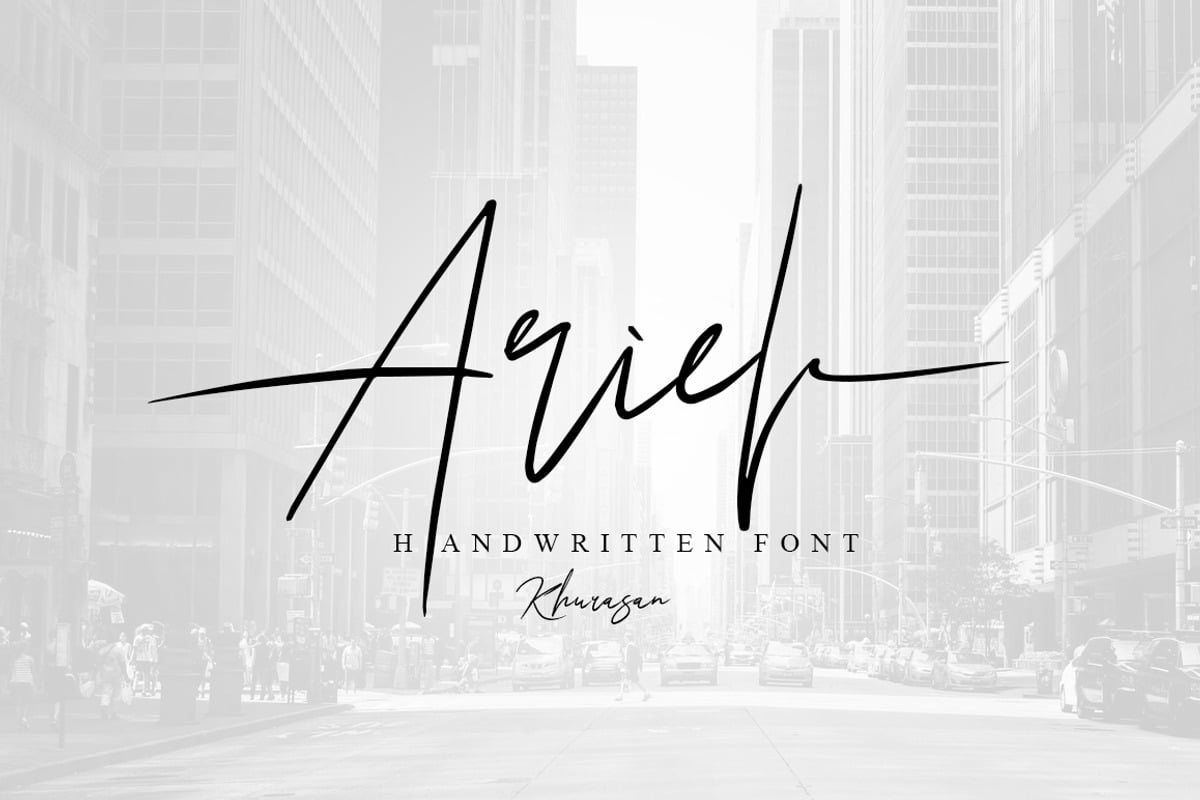
Ariel Signature Font
Create stunning designs with Ariel Signature font - a fresh and uniquely handcrafted script typeface. This handmade signature font brings an elegant, personal touch to any project. Ariel Signature Typeface works beautifully for logos, stationery, posters, apparel, branding, wedding invitations, cards, taglines, layout design, and much more! Features: Uppercase and lowercase characters Punctuation and numerals Multilingual support Beautiful swashes Files included: Ariel Regular (OTF & TTF) Ar...